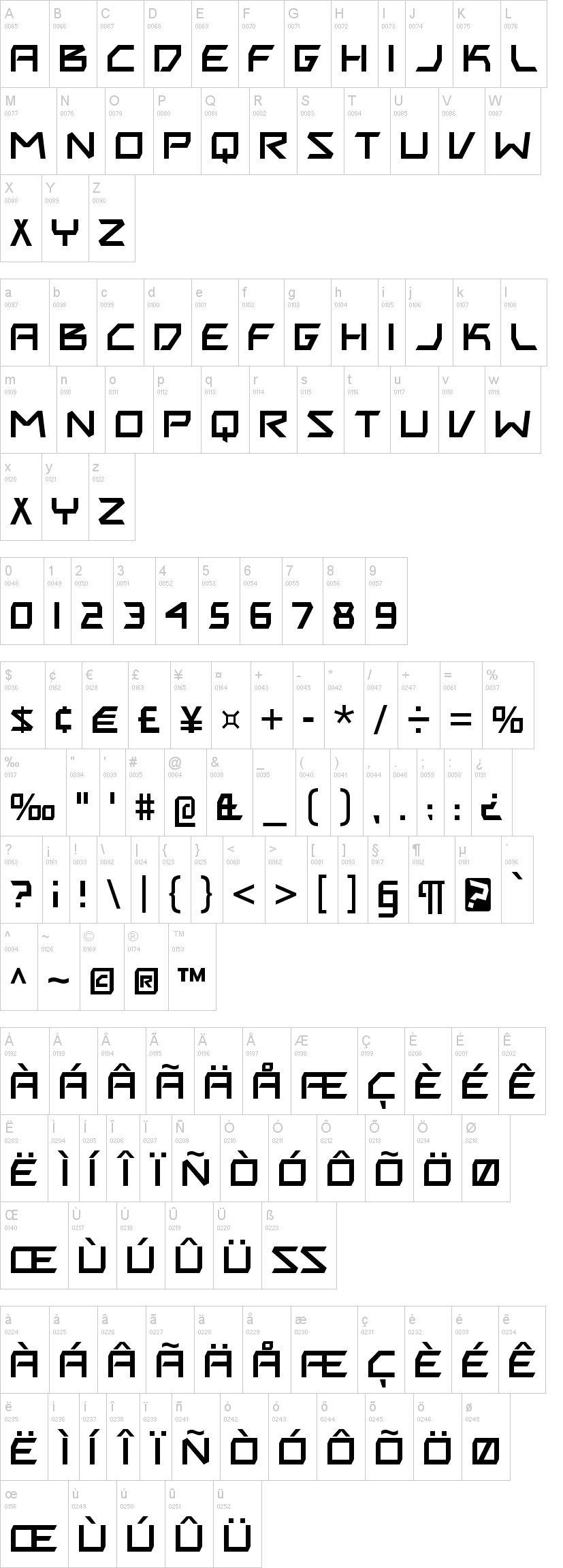
Шрифт Biting My Nails
Biting My Nails is an angular techno font suitable for robot identification numbers. Don't forget to read the files inside the zip for details. Updated in 2012.